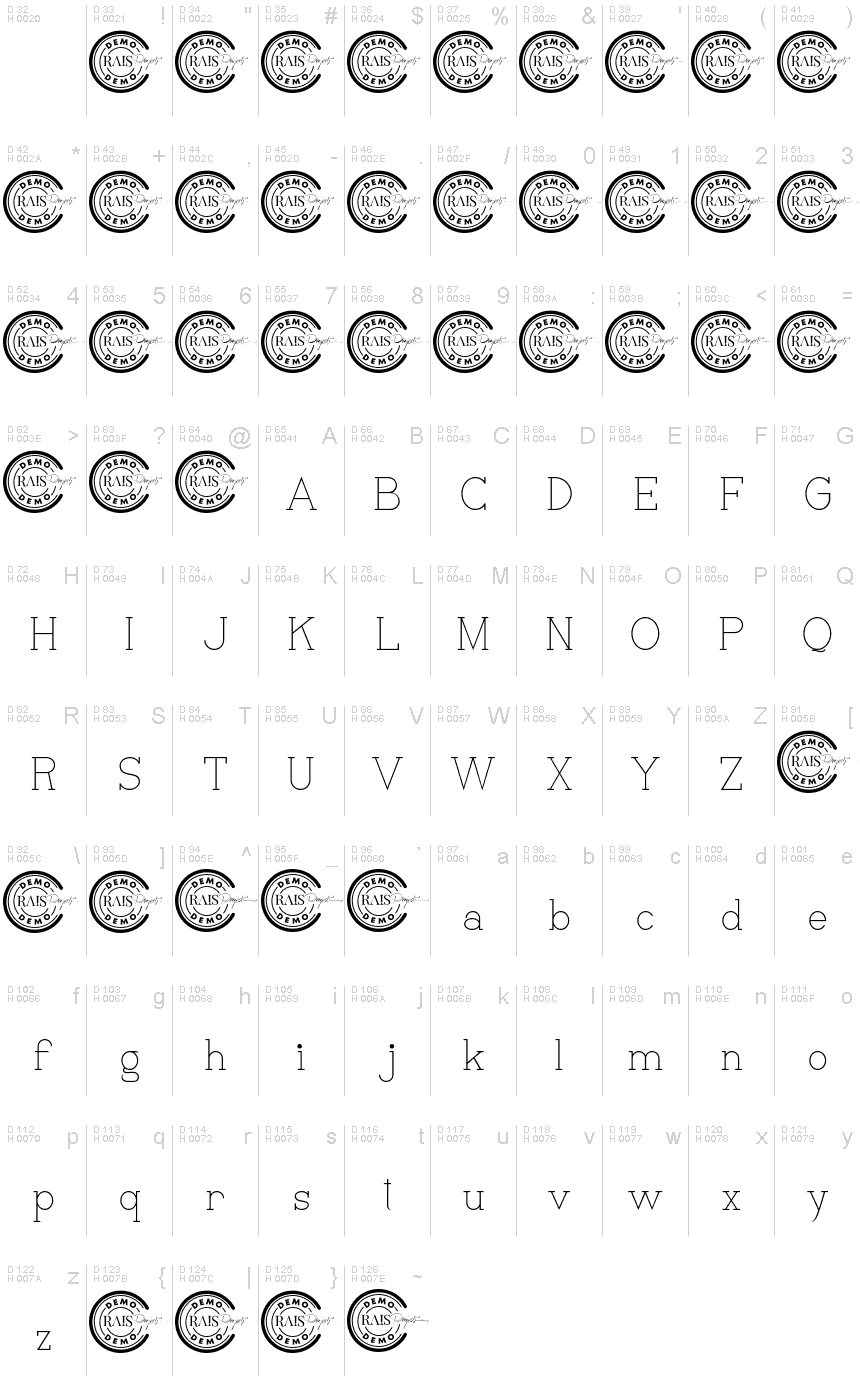
Introducing Victorela Light - the perfect slab serif font for all your creative projects! Designed by Widiyanti and Suci Anita, this extra-light font family exudes a modern yet timeless aesthetic. With its clean lines and elegant curves, Victorela Light is an excellent choice for branding, advertising, packaging design, and editorial layouts. Whether you're crafting a logo or designing a website, this versatile typeface is sure to make your text pop. So why settle for ordinary fonts when you can elevate your designs with Victorela Light? Try it today and take your projects to the next level!
Victorela Demo Light